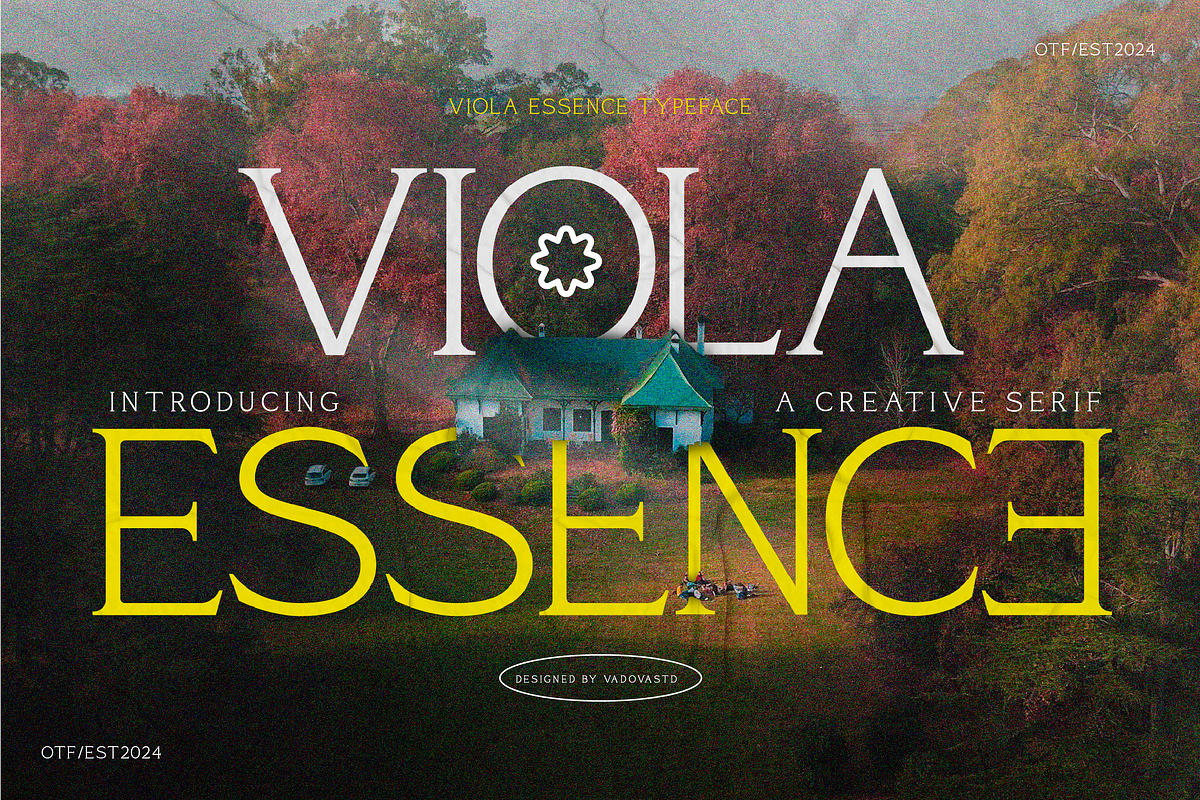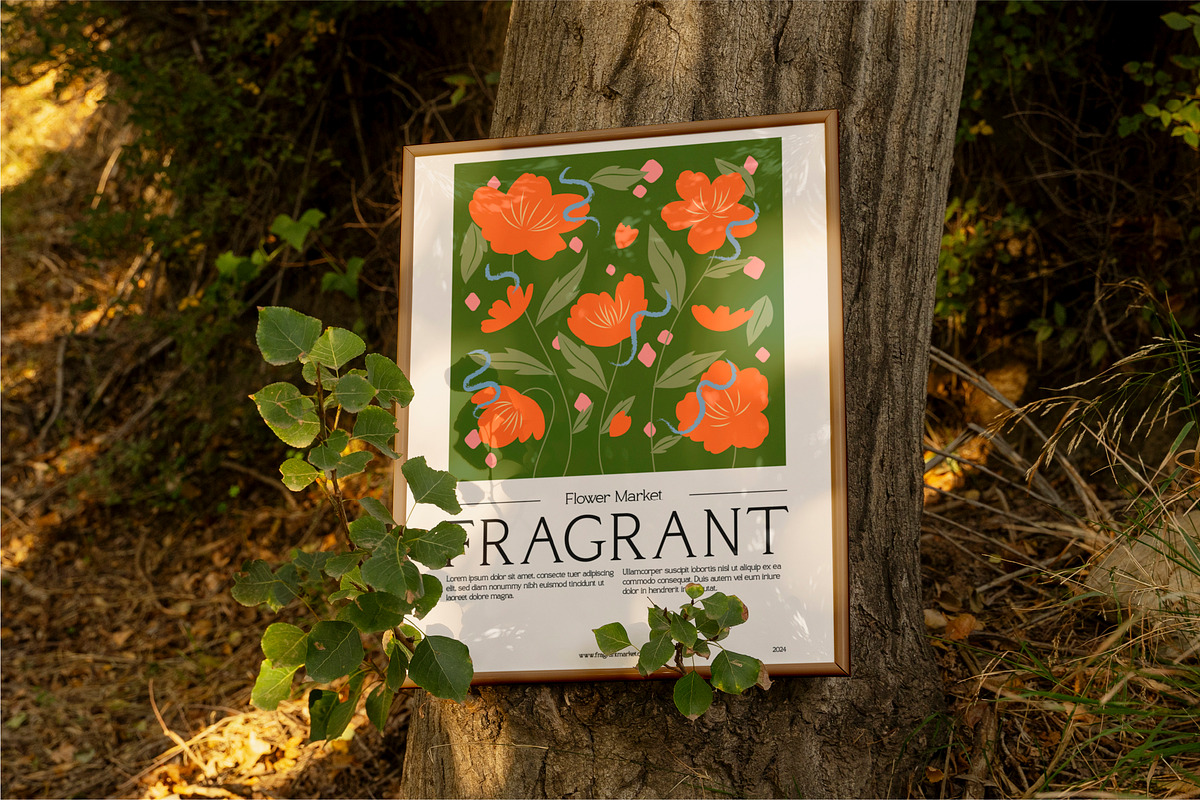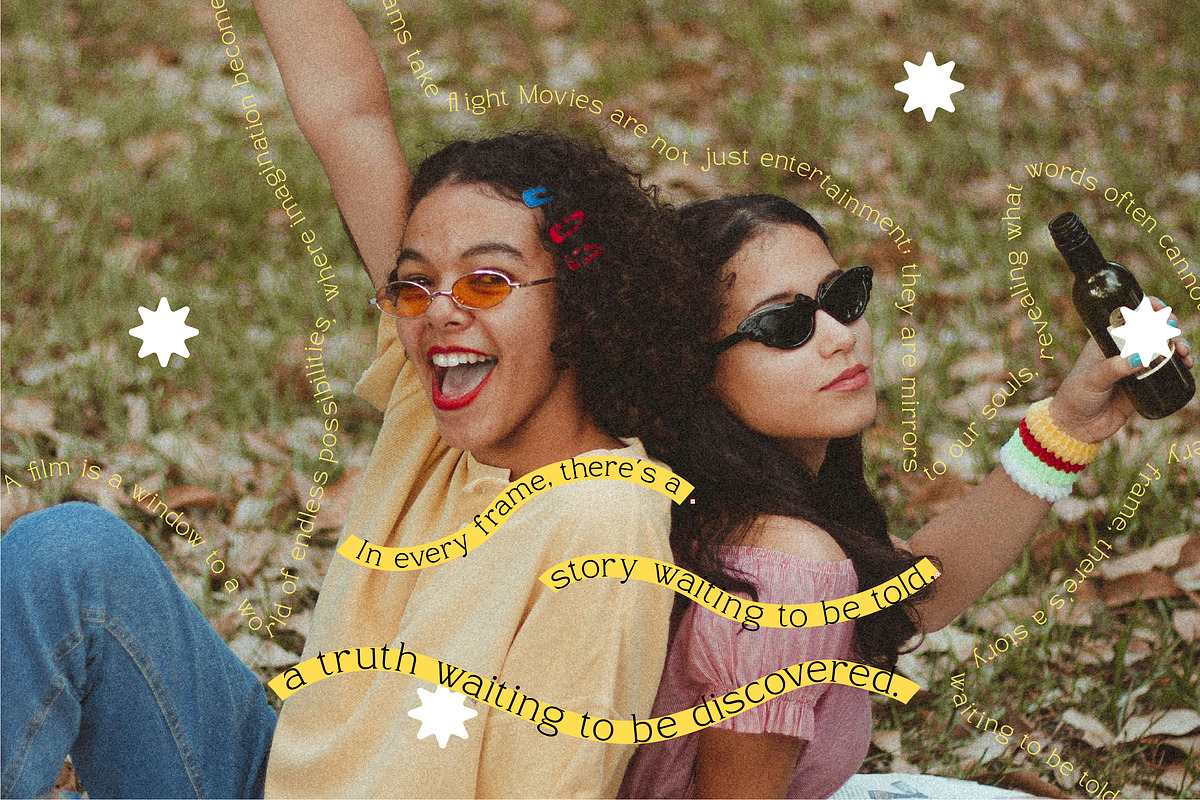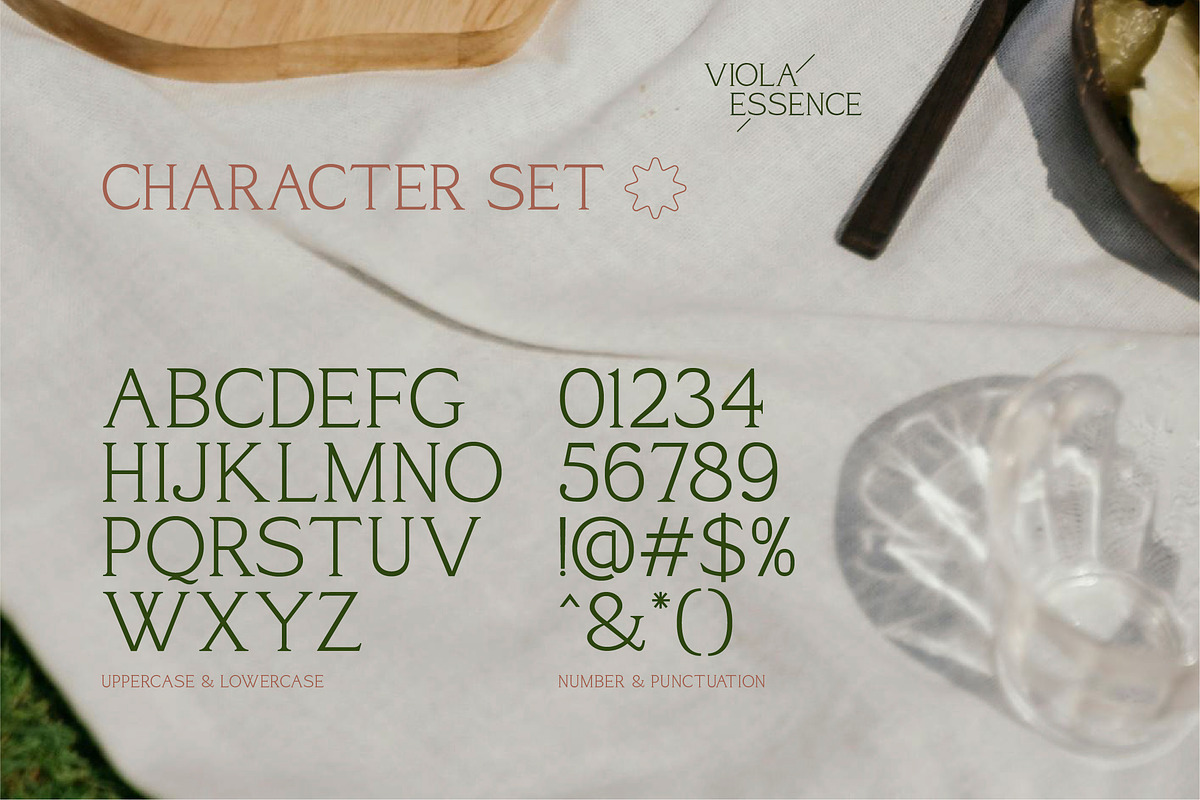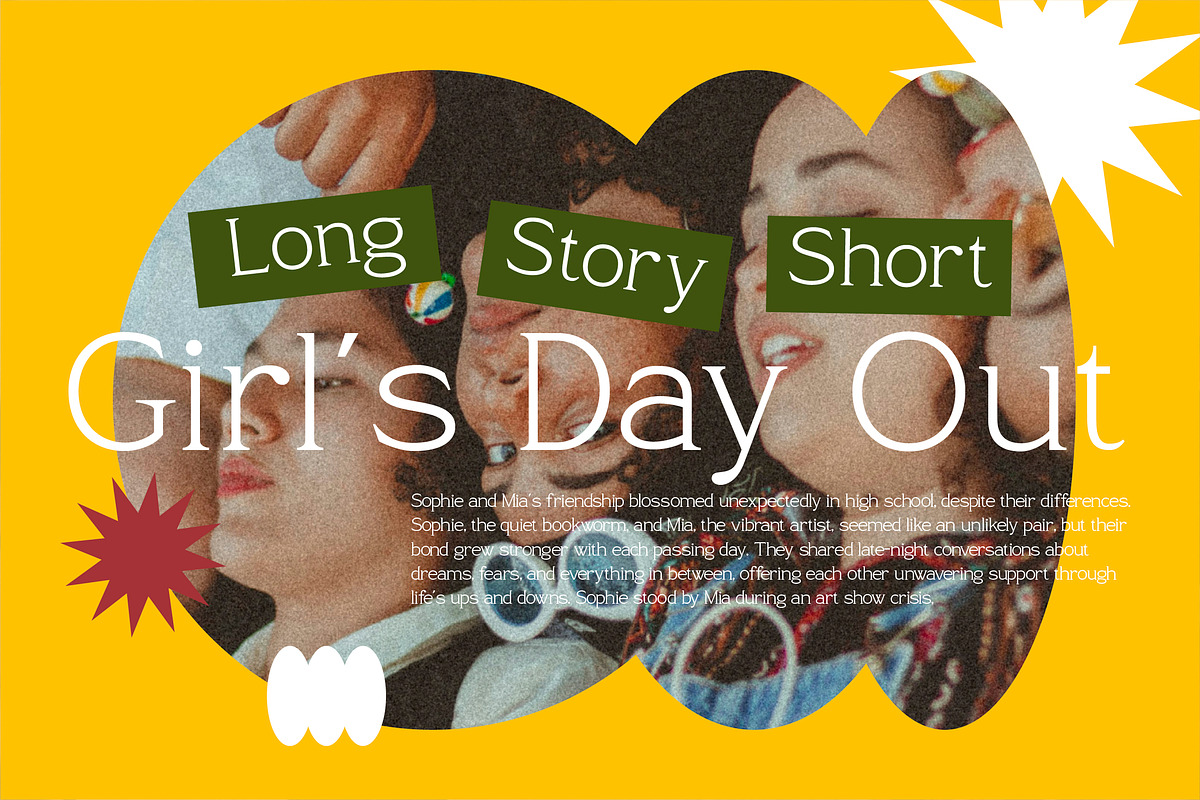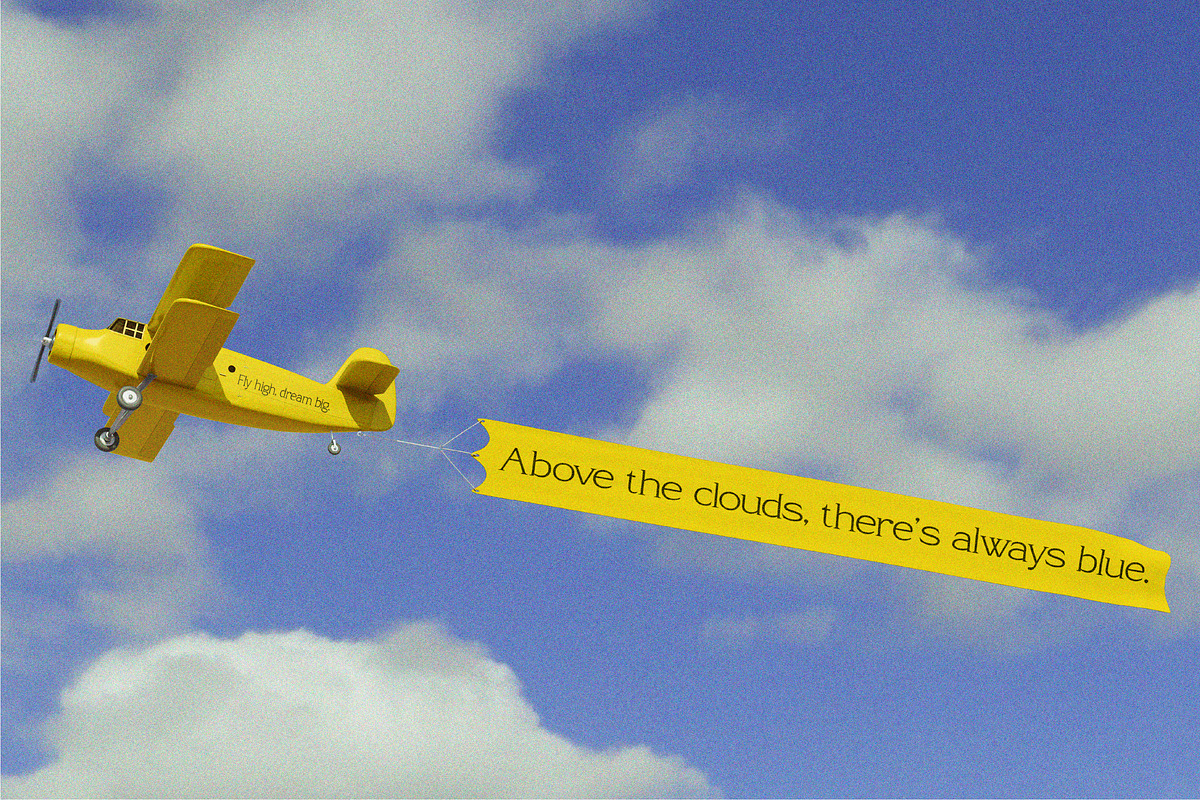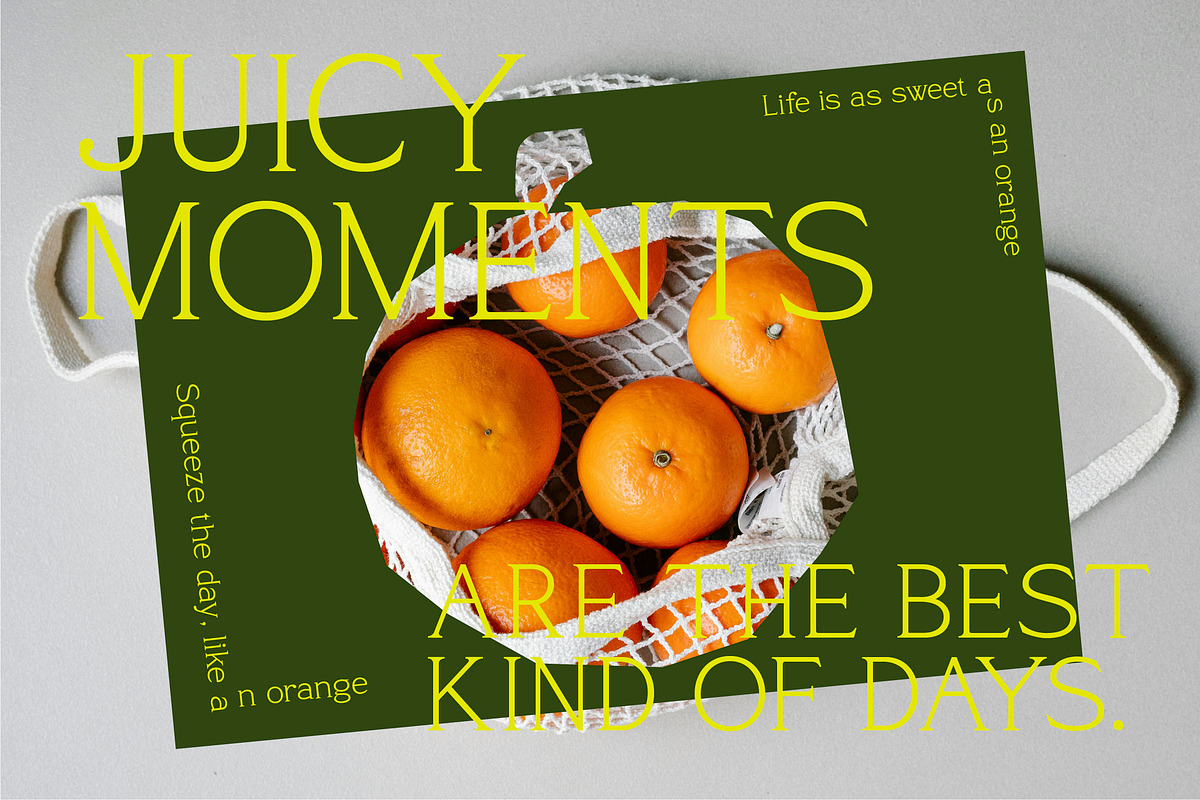
Viola Essence – Creative Serif Font
Viola Essence is a creative serif typeface that combines artistic elegance with modern flair. With its contrasting strokes, stylish details, and experimental vibe, this font is designed to bring uniqueness and sophistication to any project.
Perfect for editorial design, artistic posters, fashion branding, and creative packaging, Viola Essence delivers a bold visual identity that stands out while remaining refined.
Highlights
Creative serif design with artistic curves
Stylish contrast for a distinctive look
Perfect for editorial, branding, and modern layouts
A blend of refinement and creative experimentation
Best Uses
Fashion Branding – create iconic logos & campaigns
Editorial Layouts – stylish magazine and book design
Creative Posters – bold artistic statements
Luxury Packaging – upscale labels and product design
Social Media & Ads – modern content that grabs attention
Wedding & Stationery – elegant, creative invitations
Ligatures – artistic letter combinations
Alternates – stylistic variations for creativity
Multilingual Support – covers multiple languages
Complete Character Set – uppercase, lowercase, numbers, punctuation
Express creativity with Viola Essence, a serif font that blends art, fashion, and editorial elegance into one powerful typeface